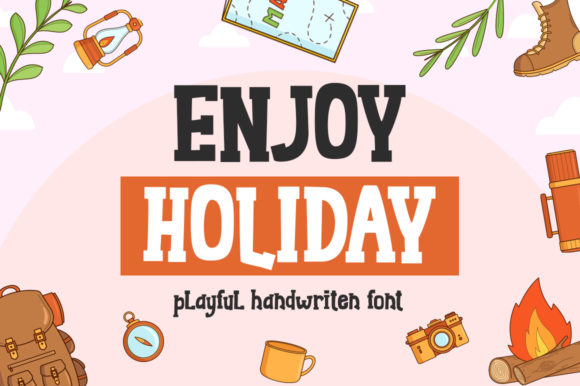
Escape into a world of captivating typography with our exquisite Enjoy Holiday Font, an enchanting display font that will ignite your creativity and elevate your visual masterpieces. Its bold and playful strokes effortlessly command attention, making it the perfect choice for captivating headlines, eye-catching social media posts, and awe-inspiring branding.
Indulge in the limitless possibilities that await you with Enjoy Holiday Font. Whether you're a seasoned designer seeking to enhance your digital presence or an avid crafter eager to add a touch of whimsy to your handmade creations, this font will effortlessly transform your vision into a tangible work of art. Let your imagination soar as you explore its versatile nature, crafting stunning designs that resonate with your audience and leave an unforgettable impression.
With Enjoy Holiday Font at your fingertips, the boundaries of creativity dissolve. Unleash your inner artist and create breathtaking posters, flyers, and invitations that captivate and inspire. Its bold and energetic character lends itself perfectly to eye-catching logos and branding elements, ensuring your business stands out from the crowd. But that's not all – this font is also a dream for social media enthusiasts, adding a touch of flair to your Instagram posts, Facebook updates, and Twitter feeds. Let your words dance across the screen, captivating your followers with every stroke.
But Enjoy Holiday Font is more than just a collection of letters – it's an invitation to embark on a creative journey. Its expressive nature empowers you to convey emotions and messages with unparalleled clarity. Use it to craft heartwarming greeting cards, heartfelt love letters, or inspiring quotes that touch the soul. With Enjoy Holiday Font, your words will resonate with a depth and sincerity that will leave a lasting impact on your readers.